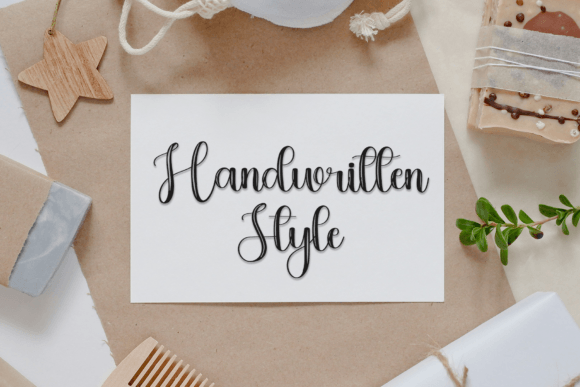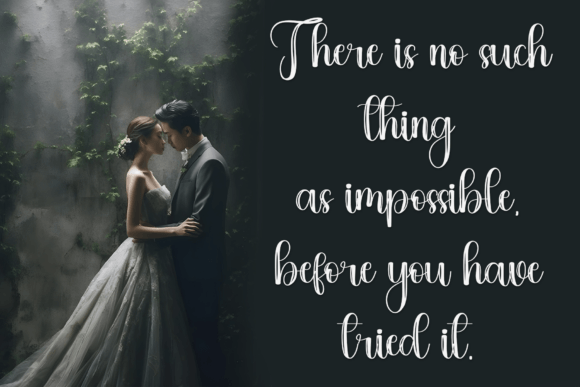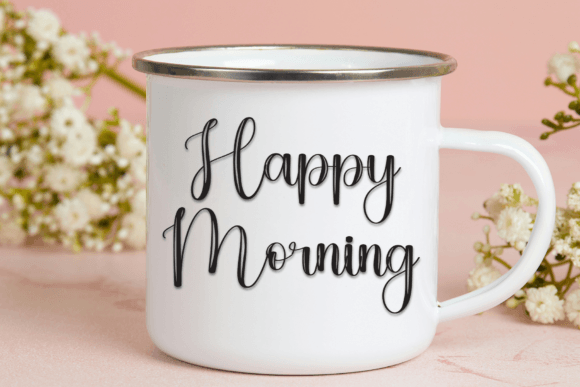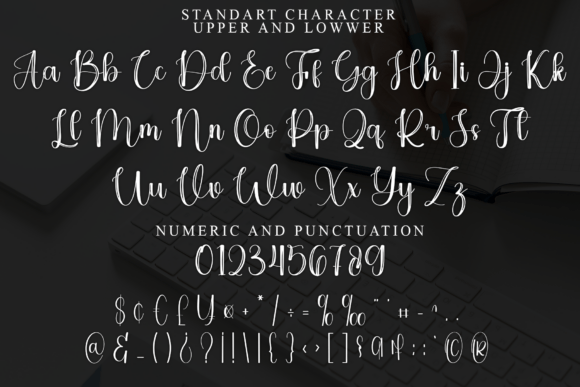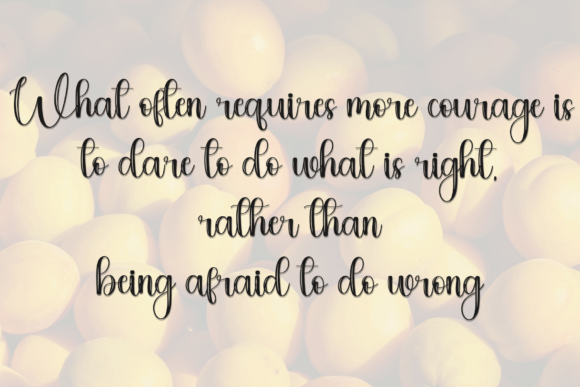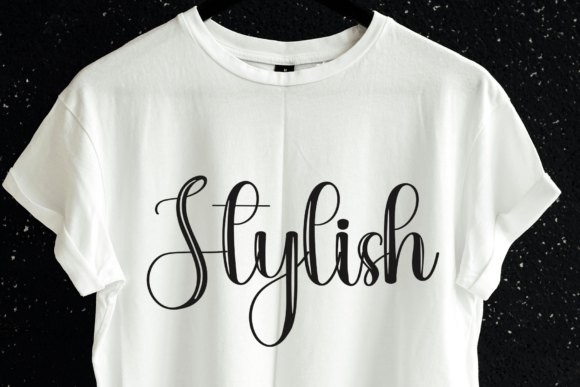
The Perfect Brushstroke for Your Design
Have you ever been in the midst of a creative project, pouring your heart and soul into every detail, only to feel like something is missing? That’s where the magic of typography comes in – a single, well-chosen font can elevate your design from ordinary to extraordinary. For me, that font is often the Calligraphy Font, with its elegant, handwritten script that adds a touch of sophistication to any project.
Calligraphy Font is more than just a font – it’s an experience. With its unique feel and stunning impact, it’s the perfect way to add a luxury touch to your designs. And with its PUA encoding, you can easily access all of the amazing glyphs and ligatures that make this font truly special.
Calligraphy Font Key Features
- Unique Characteristics: Distinctive, elegant, and cursive script with intricate flourishes and connecting strokes, perfect for creating beautiful, handwritten-style text.
Review: Calligraphy Font
Overall, I’d say the Calligraphy Font is a beautiful addition to any design project. It’s perfect for creating a touch of elegance and sophistication. ✨ The flowing script and intricate details make it a great choice for weddings, invitations, and other high-end events.
- Unique and intricate design elements
- Perfect for creating a sense of luxury and high-end feel
- Can be used for a variety of projects, from invitations to signage
- Works well with a range of colors and backgrounds
- May be difficult to read at small font sizes
- Not ideal for body text or large blocks of text
- May not be suitable for digital displays, such as screens or billboards
- Can be overwhelming if used too extensively
- ⚠️ Requires careful placement and styling to avoid visual overload
Overall, I think the Calligraphy Font is a great choice for designers who want to add a touch of luxury and elegance to their projects. With careful placement and styling, it can be a truly stunning addition to any design.
Getting the Most Out of Calligraphy Font
Use calligraphy font to add a touch of elegance and sophistication to your designs. Experiment with different font sizes, colors, and styles to create unique and eye-catching effects. Use calligraphy font to highlight important text or create a focal point in your design.
Calligraphy font is commonly used in wedding invitations, birthday cards, and other special occasion cards. It’s also used in logos, branding, and marketing materials to create a unique and memorable visual identity.